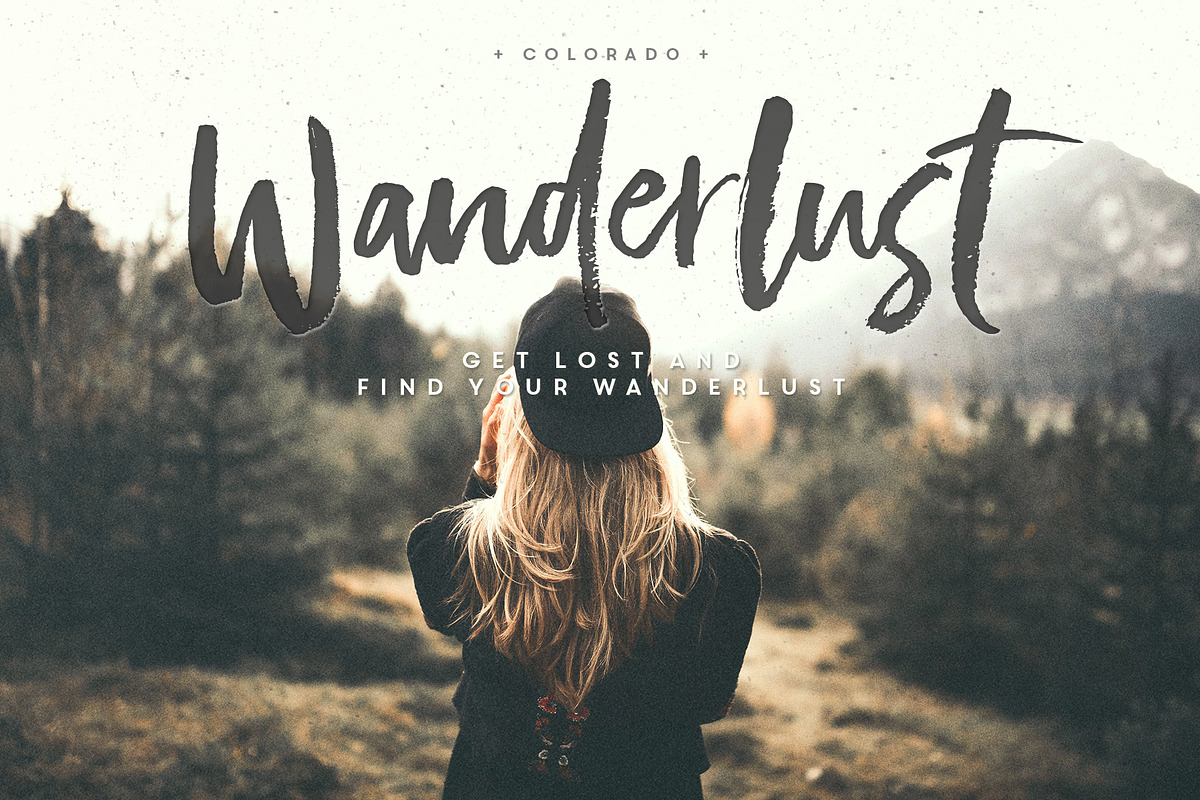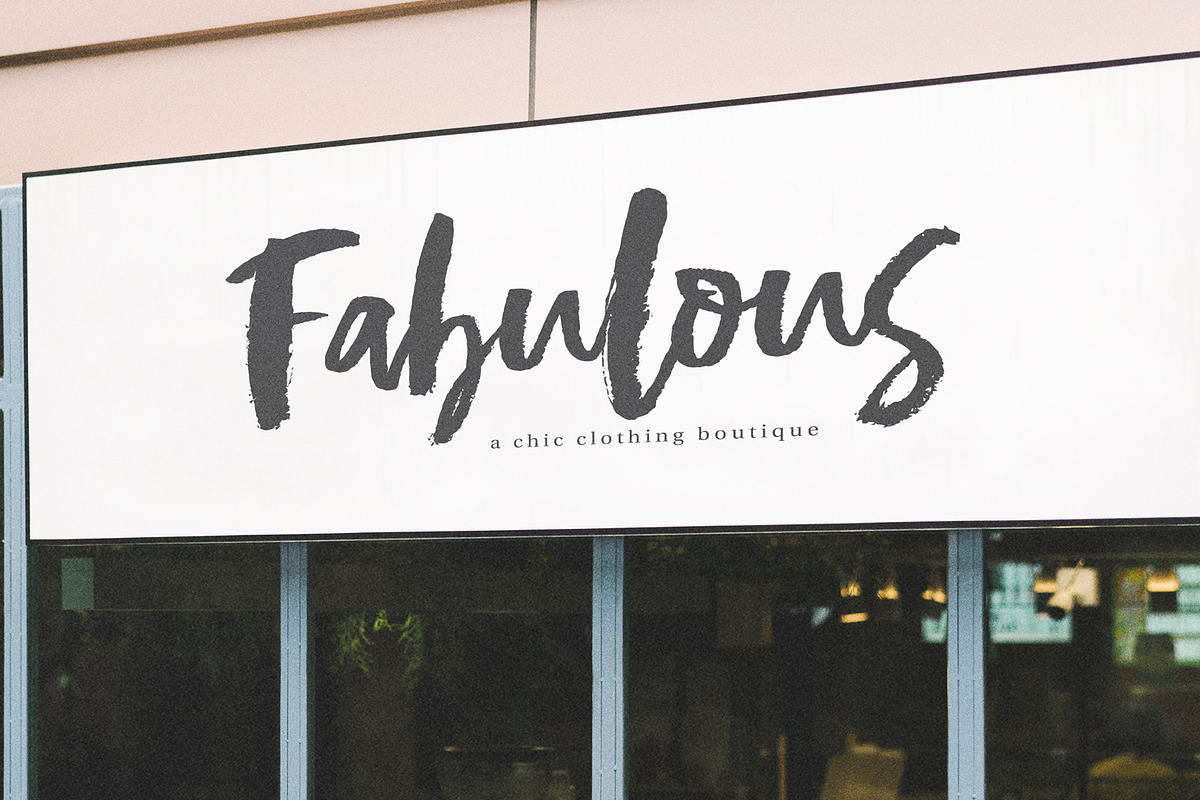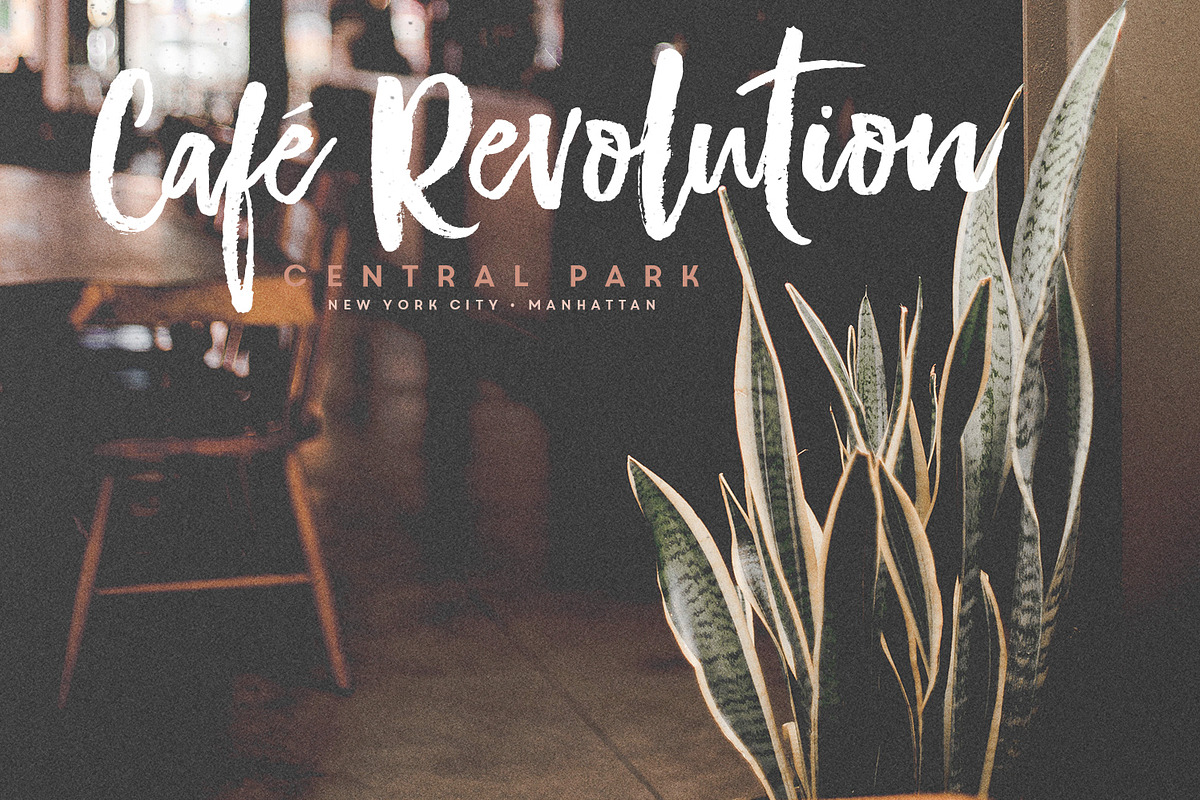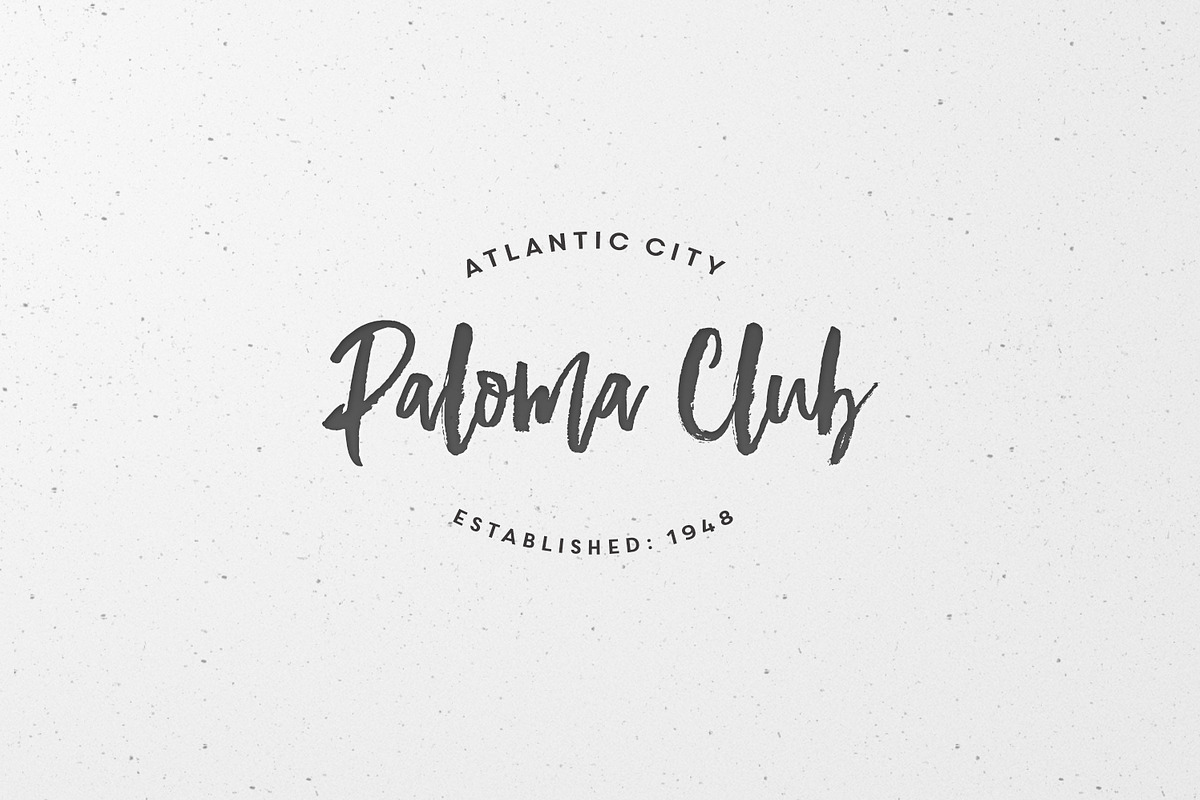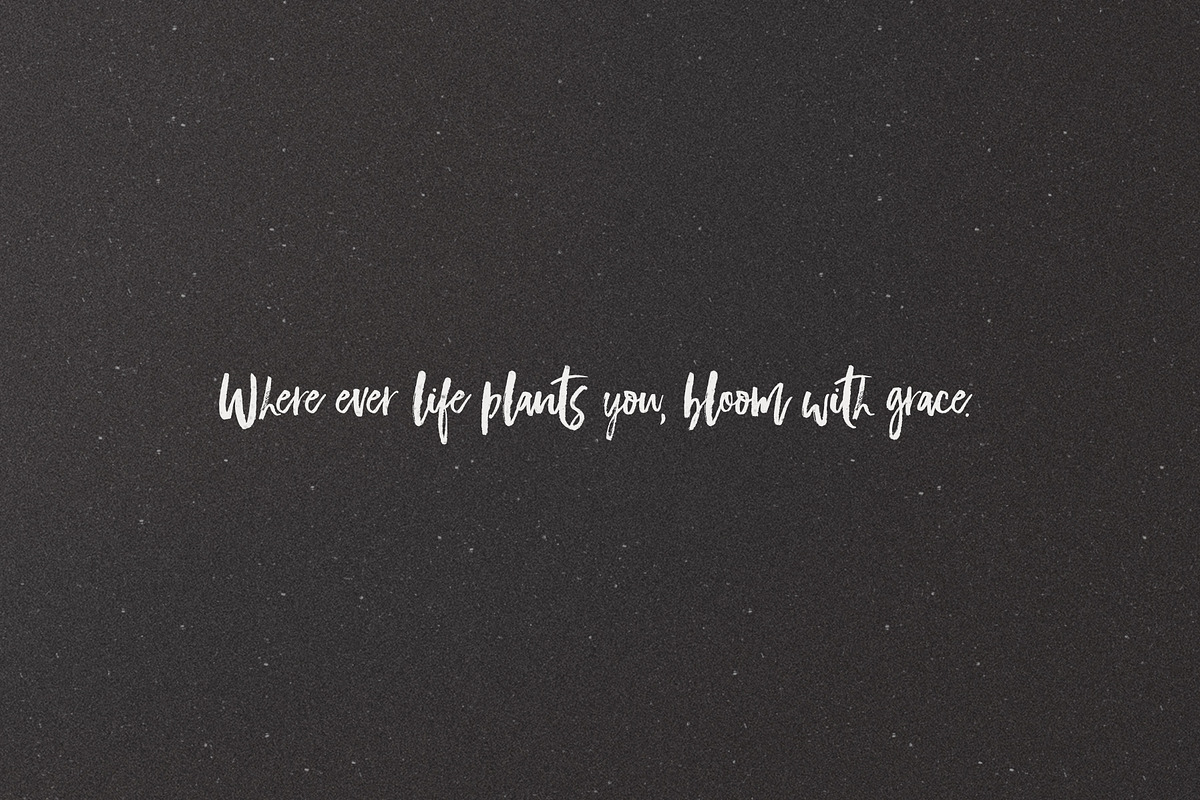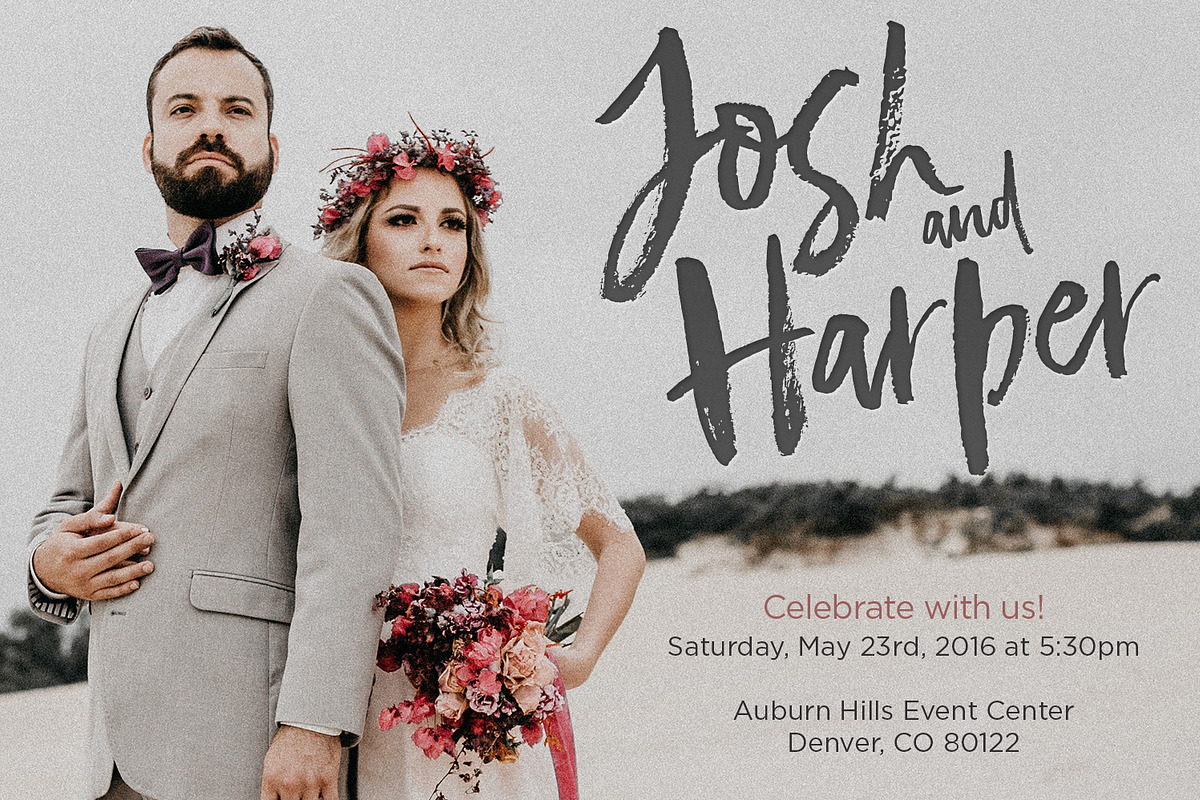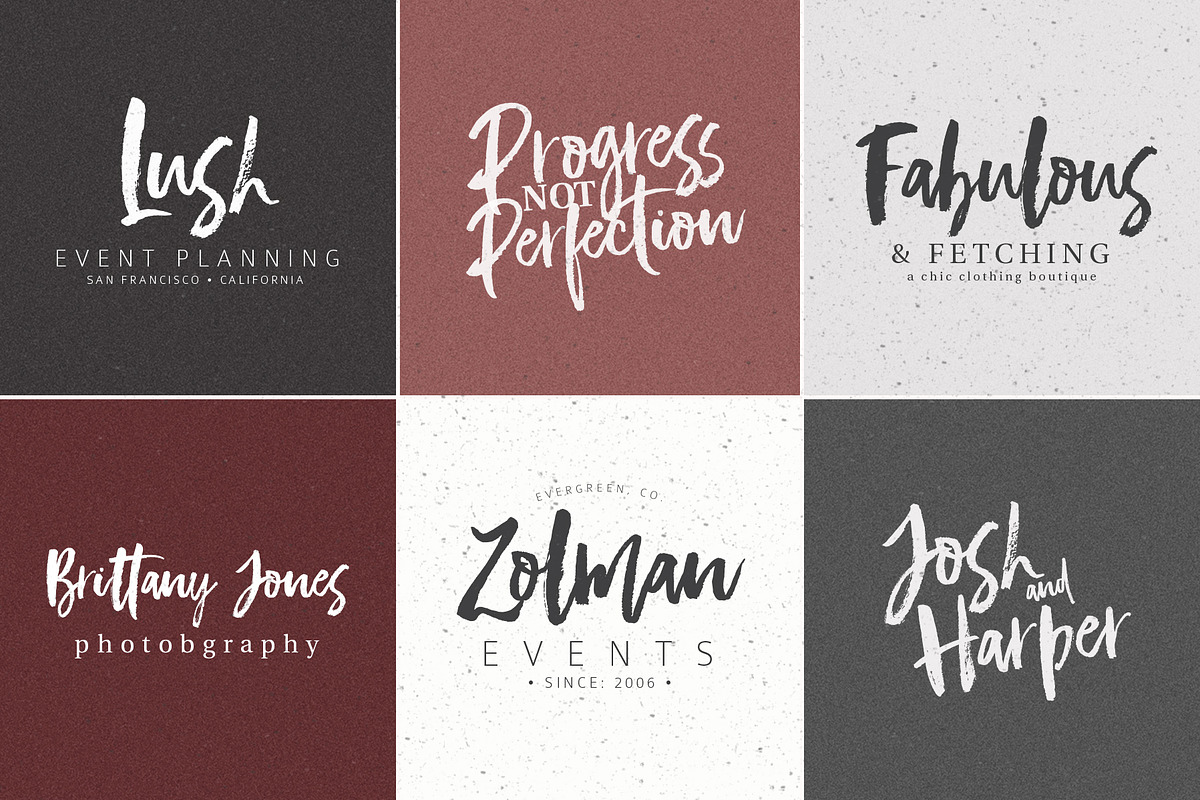
Bellissimo Typeface + Minimal Logos
Bellissimo Typeface + Minimal Logos by Callie Rian & Co. is a font selected for branding, posters, packaging, typography.
Why Bellissimo Typeface + Minimal Logos is worth a look
Bellissimo Typeface + Minimal Logos by Callie Rian & Co. fits naturally into Branding, posters, packaging, typography.